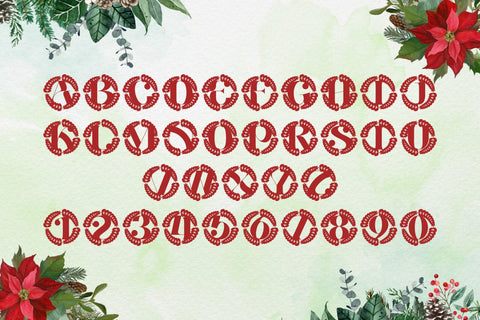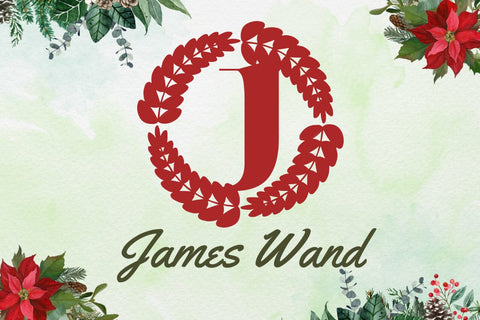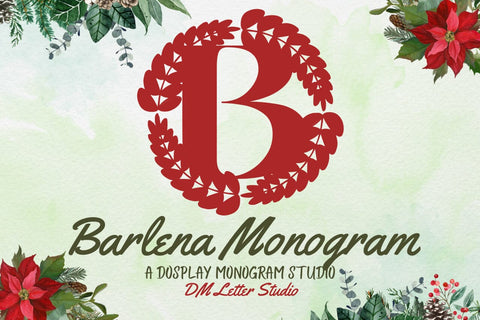
Barlena Monogram Font
Meet Barlena, the Monogram Font
Barlena Monogram Font turns simple initials into polished emblems with calm, premium presence. Strokes feel smooth and confident. Counters stay open, so tiny tags and foil seals read clearly. Use it for wedding suites, boutique logos, keepsake gifts, and elegant packaging. In addition, Barlena pairs beautifully with modern serifs and quiet humanist sans fonts, which keeps layouts refined without extra work.
Where this monogram font shines
Set single, double, or triple initials for logos, seals, menus, and place cards. Then add laurel rings, oval borders, or fine rules to echo the poised geometry. Since proportions favor symmetry, centered compositions come together in minutes. As a result, your thumbnails stand out on crowded marketplaces and your listings look consistent from invitations to signage. Barlena also scales smoothly from jewelry cards to entry displays.
Design tips for Barlena Monogram
Keep initials large and let white space breathe. Pair the headline monogram with a soft serif for body text or a clean sans for labels and dates. Meanwhile, add micro shadows, a thin inner stroke, or a delicate frame to create depth. Because the forms feel airy and balanced, textured papers and metallic accents raise perceived value. However, keep copy short so the monogram remains the hero, especially on small favors and tags.
Select stylistic alternates for key letters
Curves tuned for foil, letterpress, engraving, laser cutting, and clean vinyl paths
Why creators choose Barlena
You want elegance that reads at a glance and sells across many product types. Barlena Monogram Font delivers steady clarity, fast layout, and a cohesive brand voice from invites to packaging and gifts.